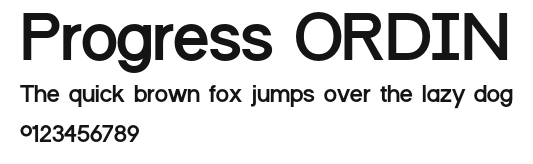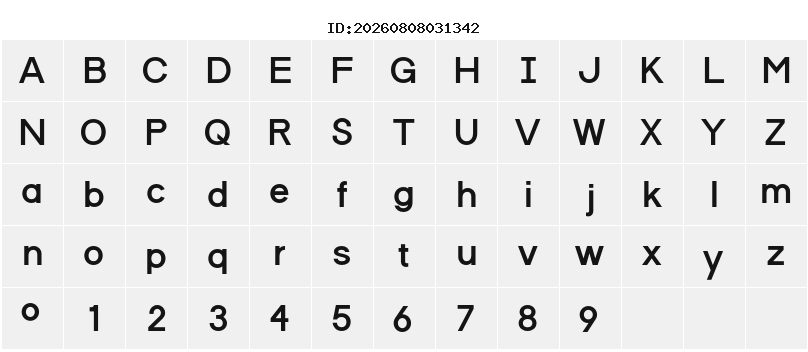
• Font Name: Progress ORDIN
• Manufacturer: PYRS Fontlab Ltd. / Made with FontLab
• Description: Progress ORDIN is a font by PYRS Fontlab Ltd. / Made with FontLab, designed in 2014.
About Progress ORDIN.ttf
Progress ORDIN.ttf is a modern, elegant sans-serif font designed for ultimate readability and visual harmony. Perfect for branding, headlines, web design, and print materials.